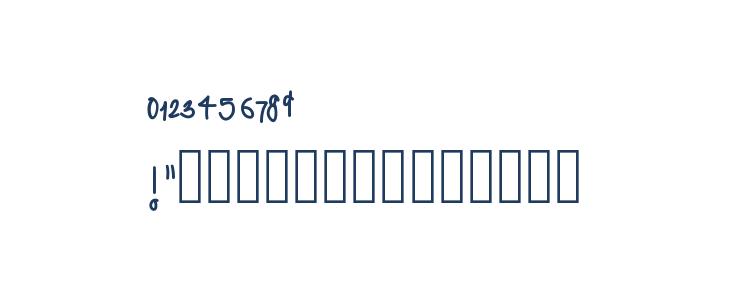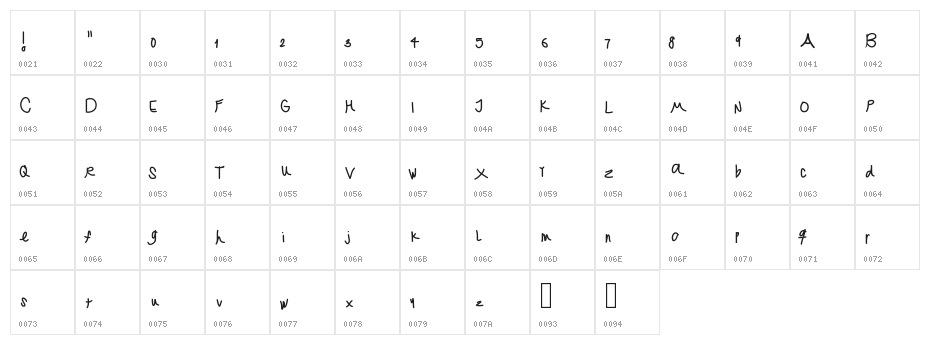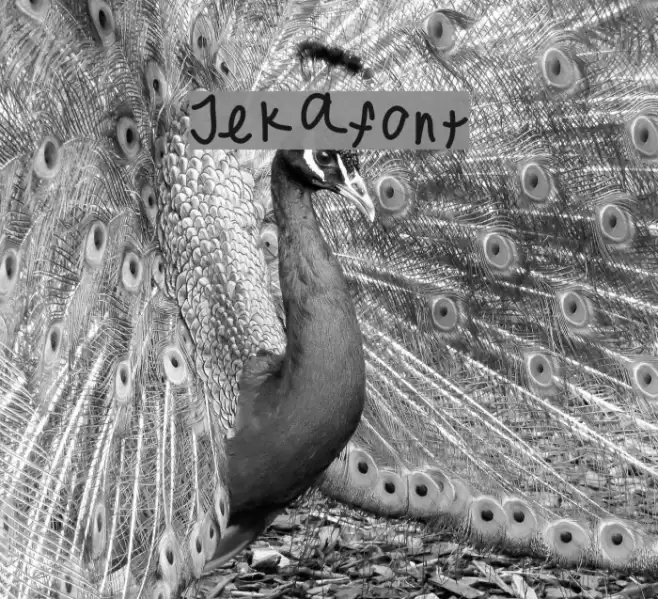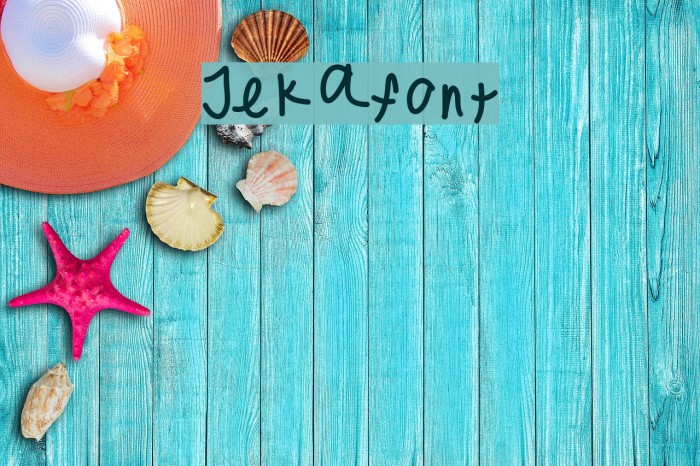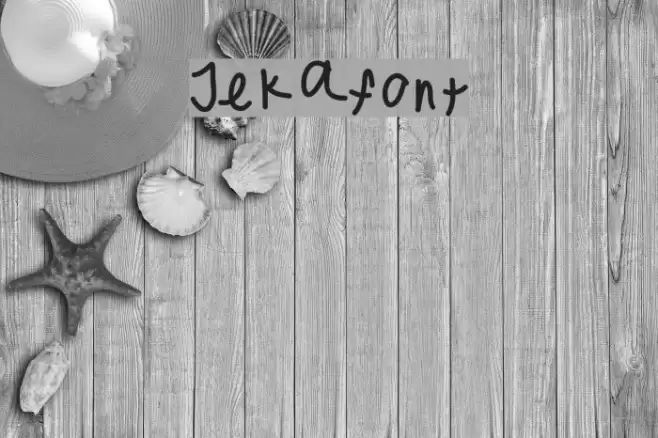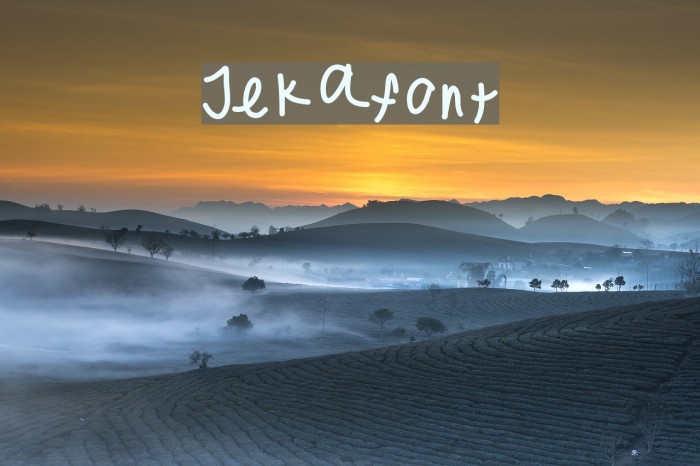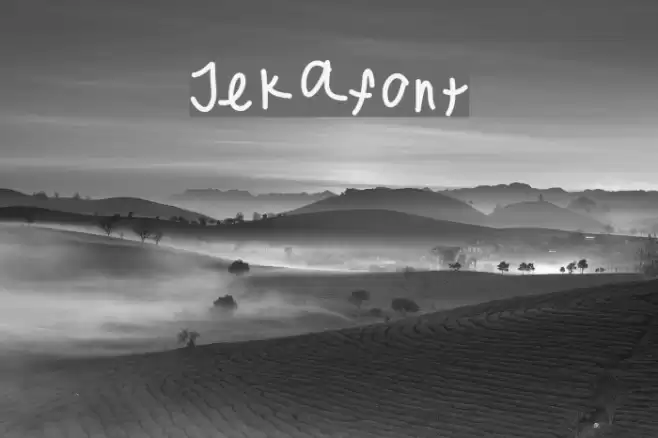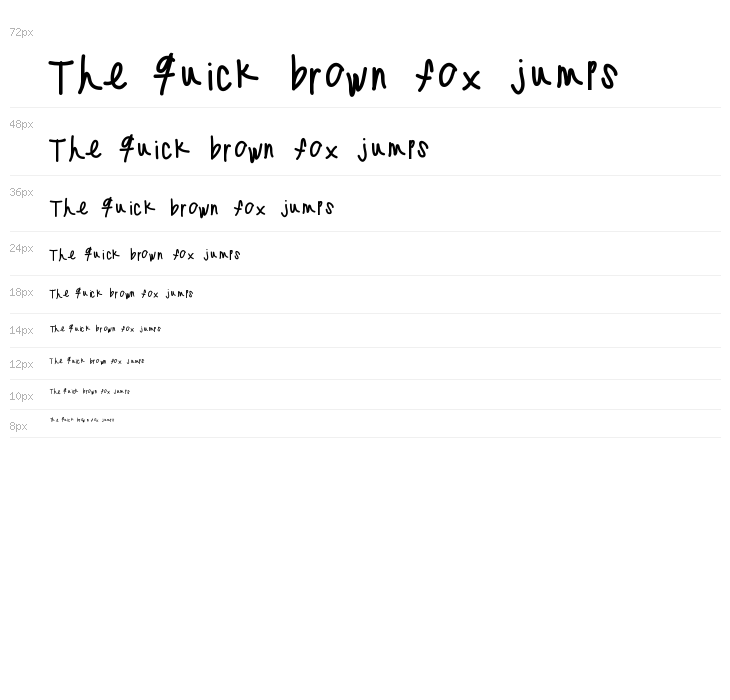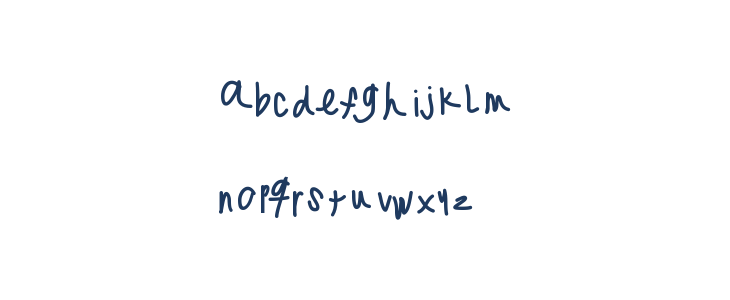
Jekafont Font
Jekafont Description
This font features a playful and informal handwritten style, characterized by its uneven strokes and casual appearance. The letters have a whimsical quality, with varying heights and widths that give it a dynamic and lively feel. The uppercase letters are bold and slightly slanted, while the lowercase letters maintain a consistent flow with rounded edges. The numbers are quirky and match the overall playful theme. Special characters are included, adding versatility to the font. This style is perfect for projects that require a personal touch or a fun, approachable aesthetic.
| Use Case | Headlines, Logos, Casual Text |
| Proposed Projects | Ideal for greeting cards, children's books, playful branding, and casual invitations. |